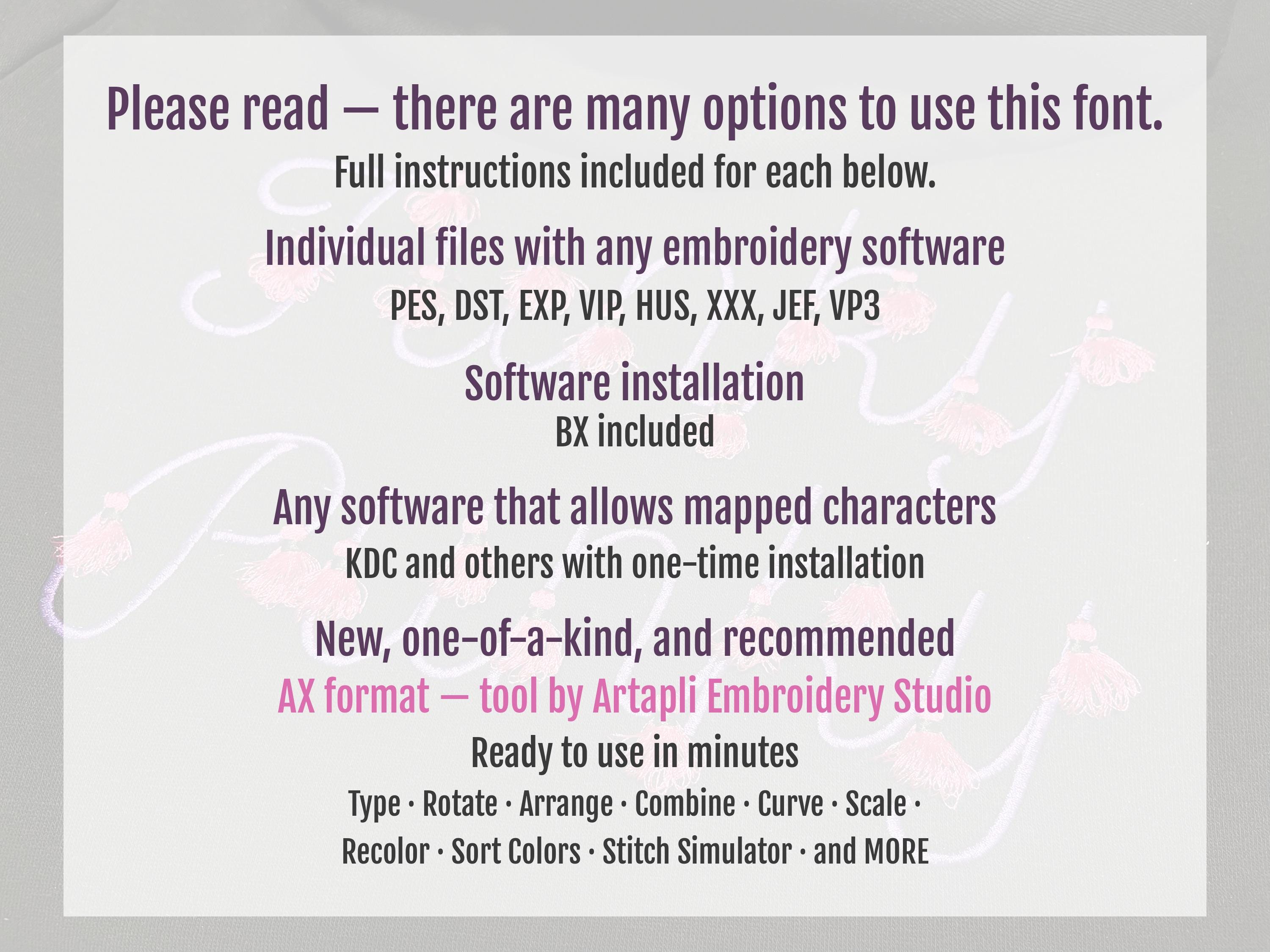
Fringed tassels Fiesta Font line satin stitch alphabet machine embroidery designs fluffy decorative letters from 1 up to 3 inches BX included
Entire alphabet A-Z uppercase and lowercase, and numbers 0-9.
You may fringe all tassels.
100 % safe to wash (the design has a special tack seam that holds a fringe in place)